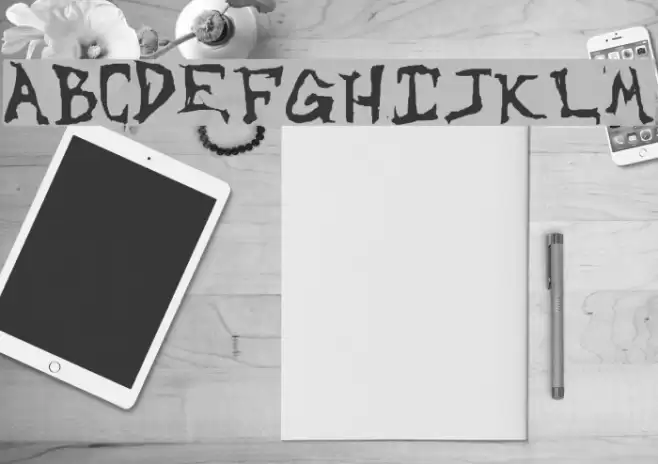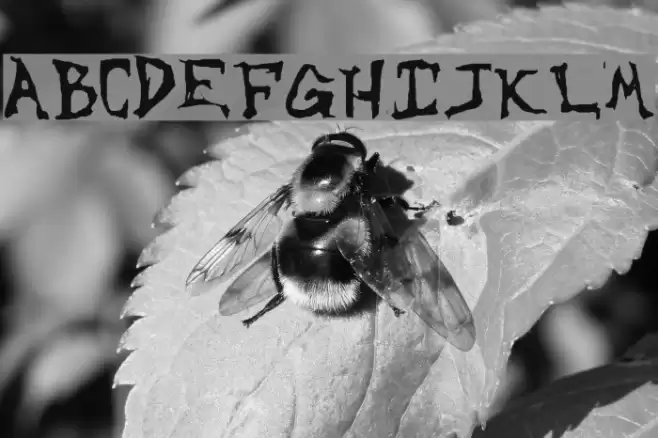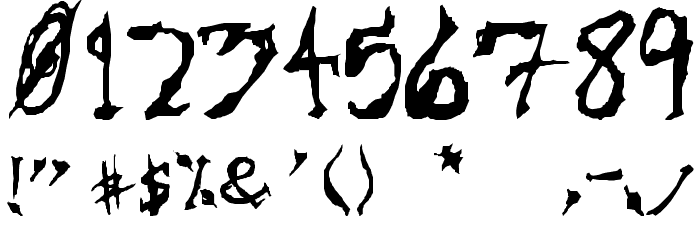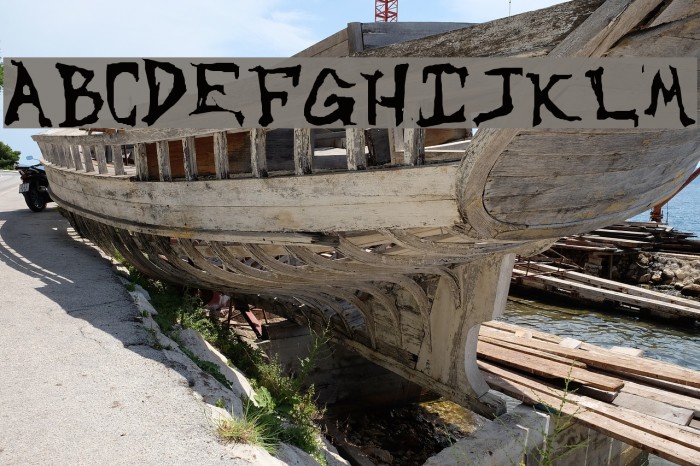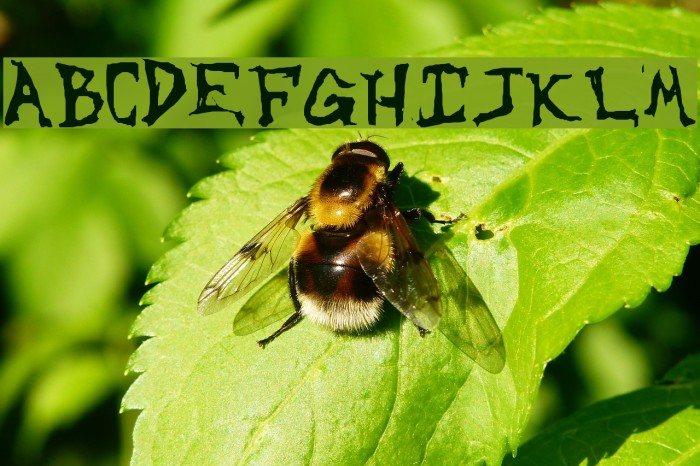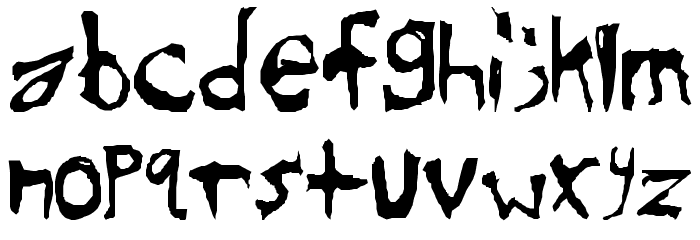
Sinister-Plot Font
Sinister-Plot Description
This font features a highly irregular and jagged design, reminiscent of hand-drawn letters with a sinister twist. Each character appears to be crafted with uneven strokes, giving it a chaotic and unsettling appearance. The uppercase and lowercase letters maintain a consistent style, with sharp edges and unpredictable angles. Numbers and special characters follow the same erratic pattern, enhancing the font's overall eerie aesthetic. This font is ideal for projects that aim to evoke a sense of mystery or horror, making it perfect for Halloween-themed designs or thriller movie posters.
A jagged, hand-drawn style font with an eerie, chaotic appearance from Horror fonts.
- Proposed Projects: Ideal for horror movie posters, Halloween invitations, mystery novels, and escape room branding.